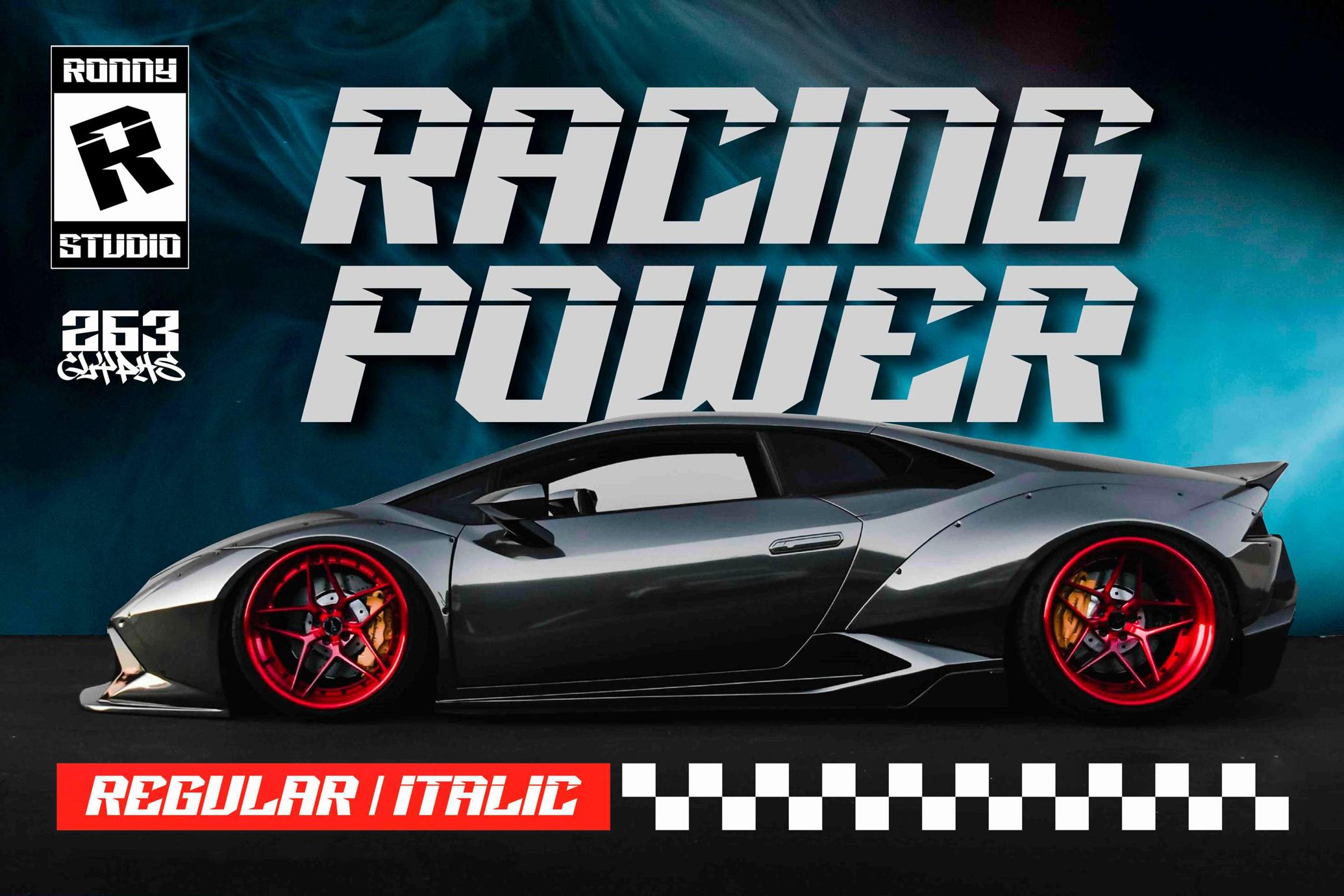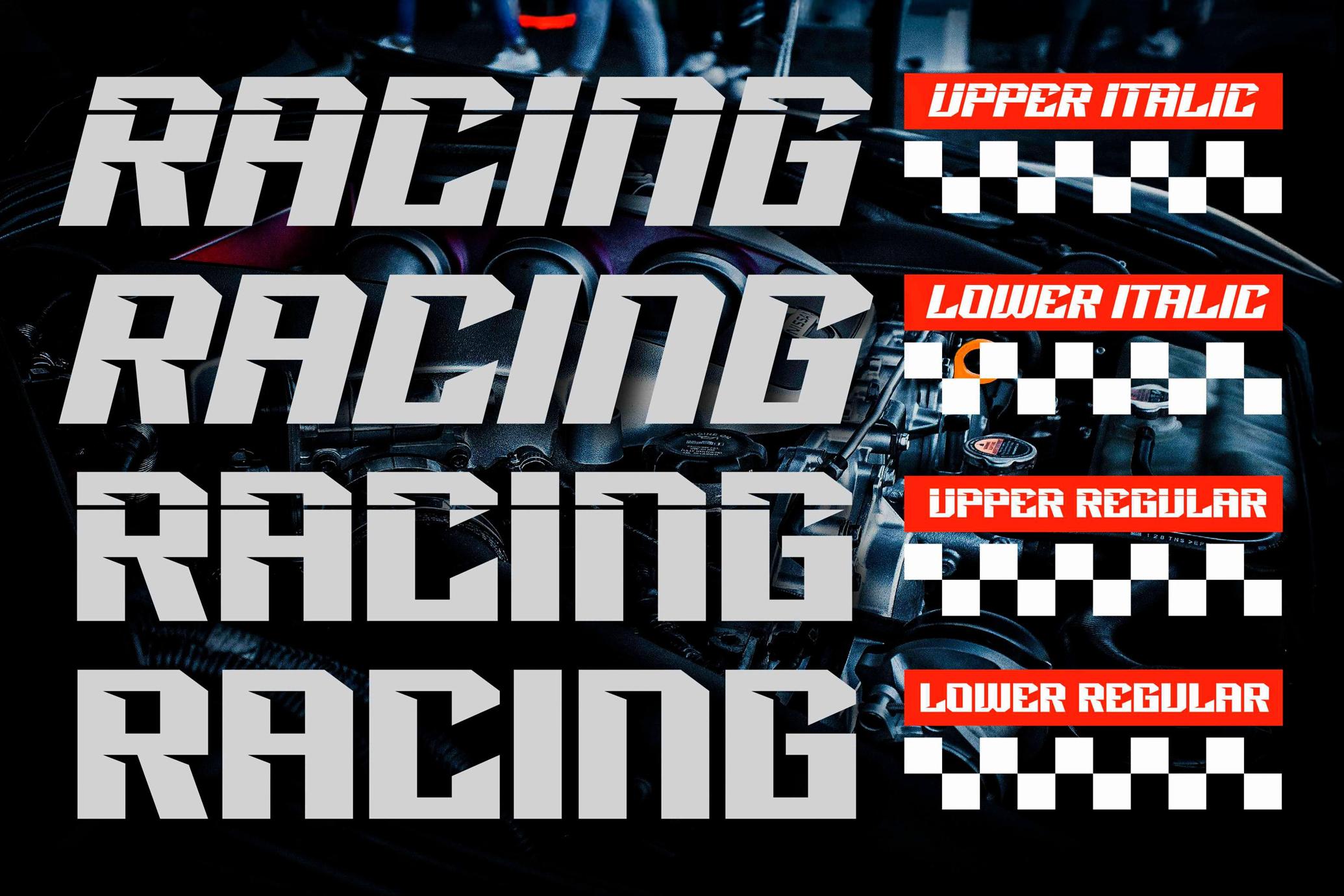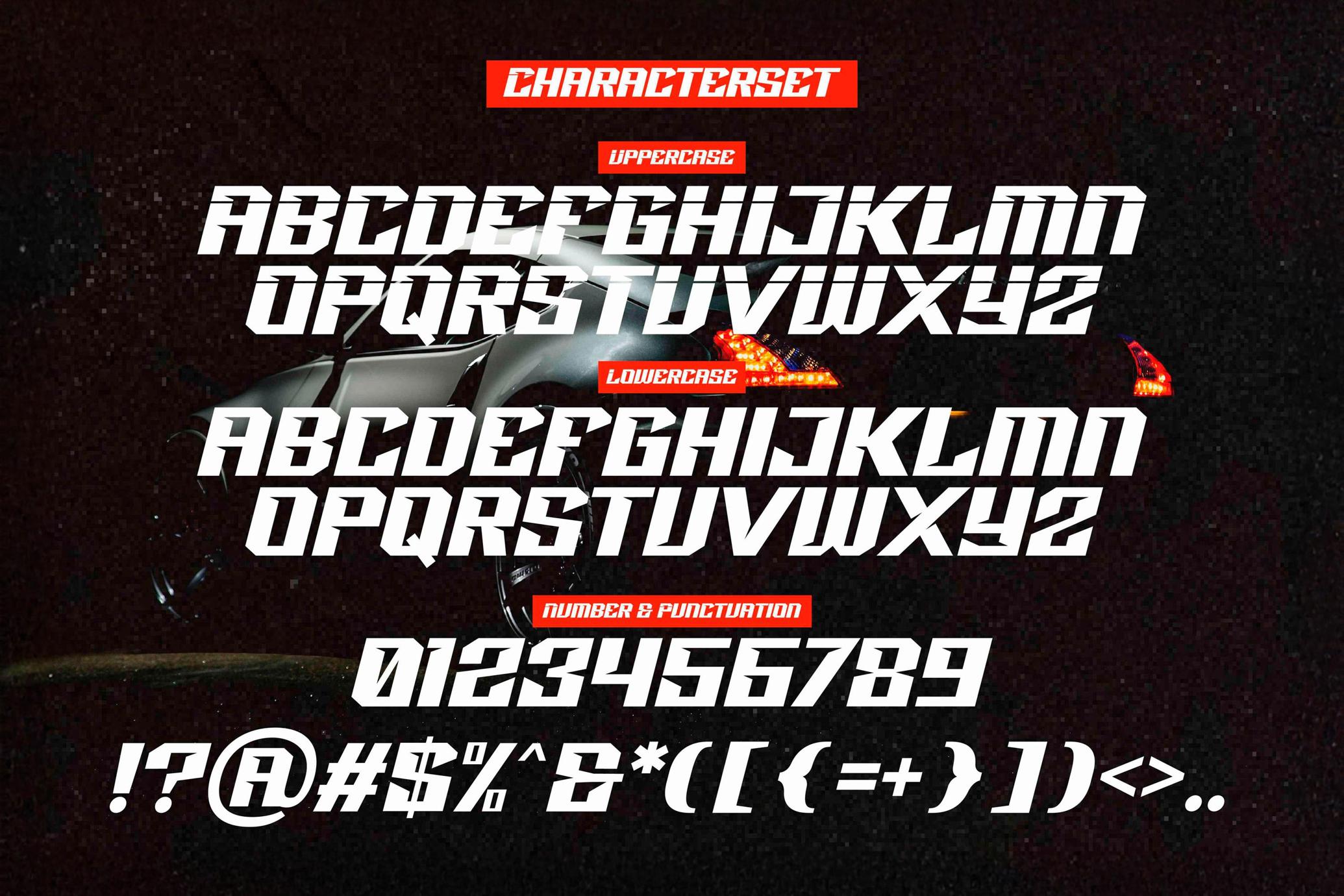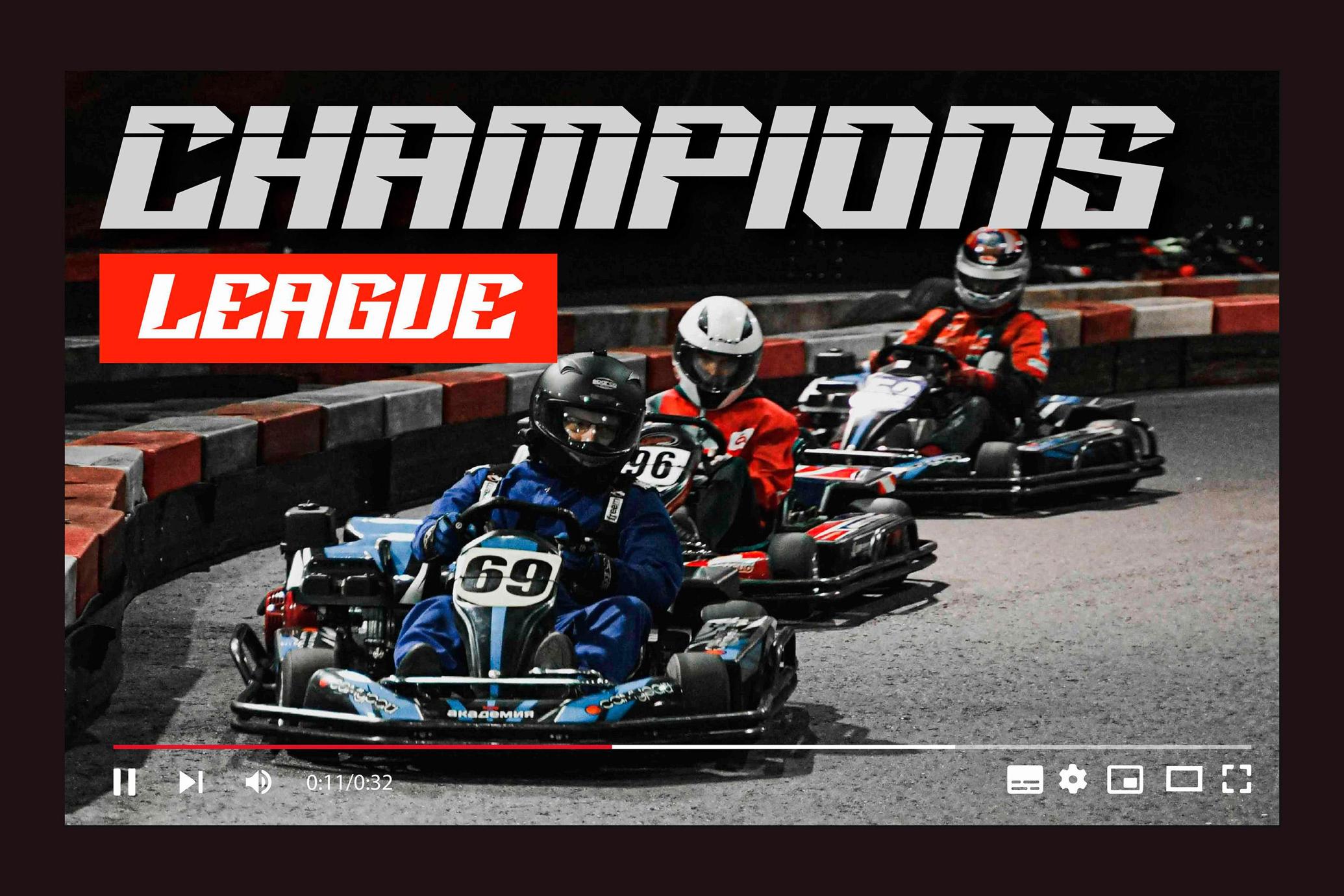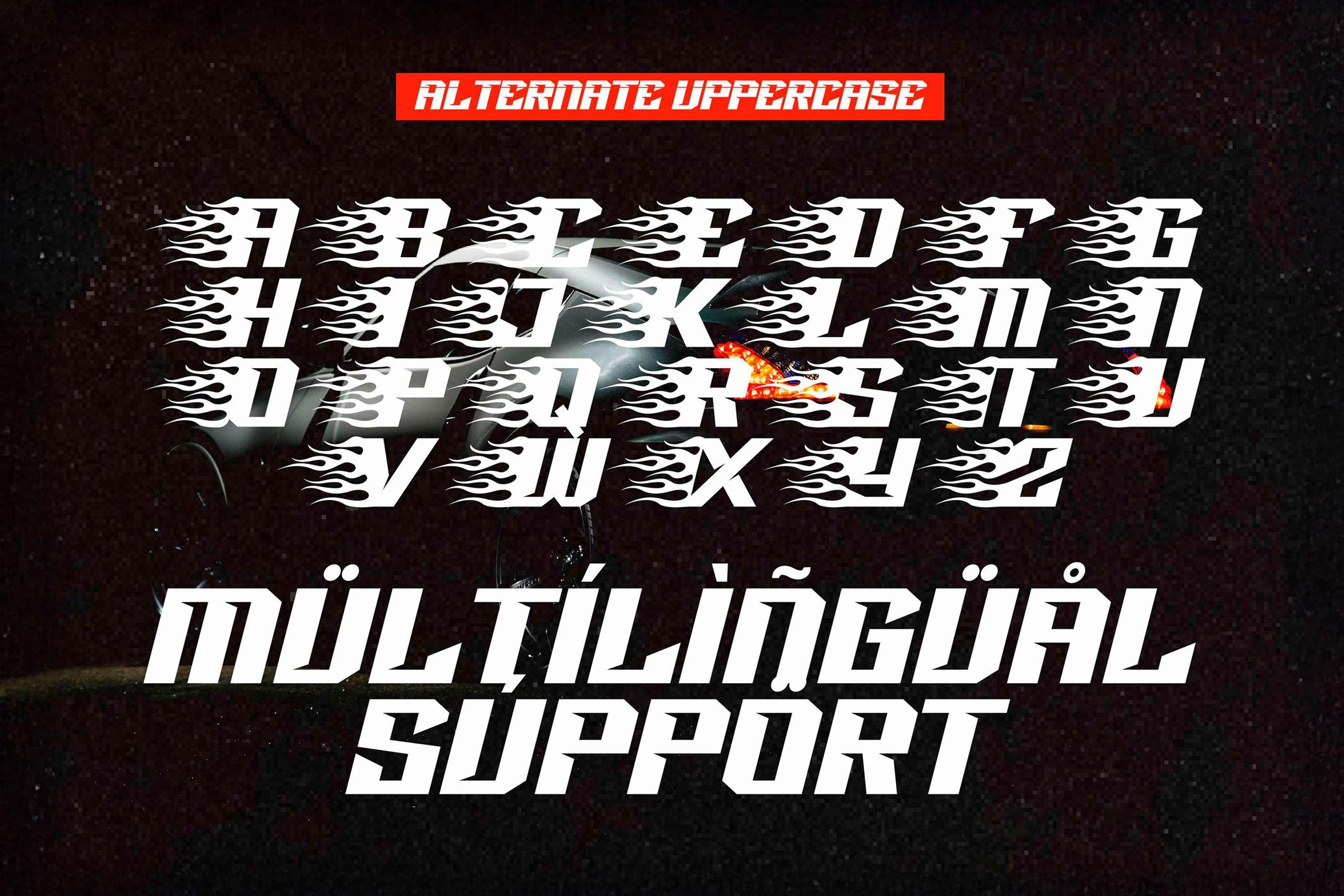
Racing Power — Sports Font
Racing Power font is built like a supercar — aggressive and aerodynamic. With thick, high-contrast letterforms and razor-sharp angles, this all-caps display delivers the rush of high-speed visuals and motorsport bravado in every character. It's packed with alternates, ligatures, and multilingual support, and comes in Regular and Italic styles to help you shift gears as needed. Ideal for automotive graphics, performance branding, streetwear labels, or giving your layout a turbo-charged edge.